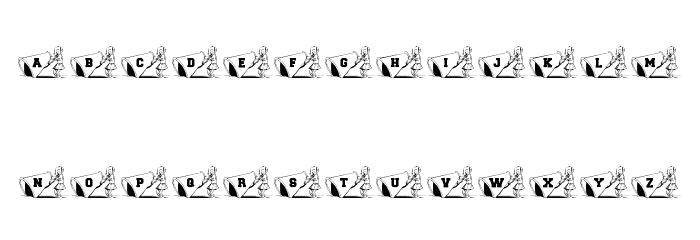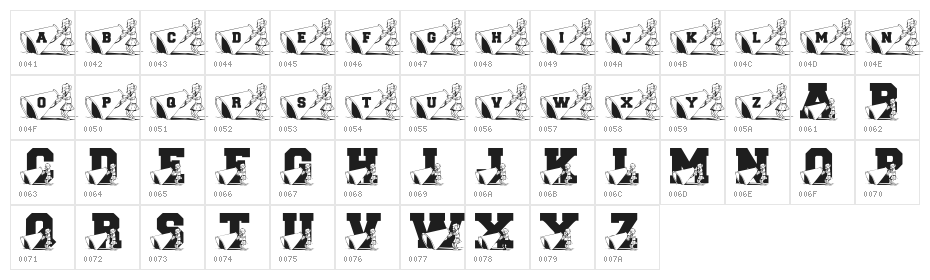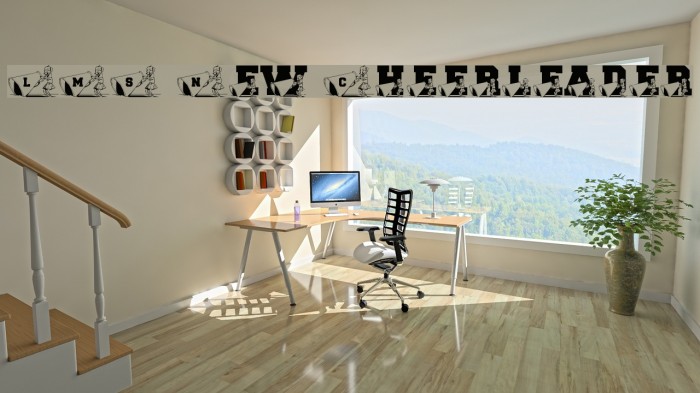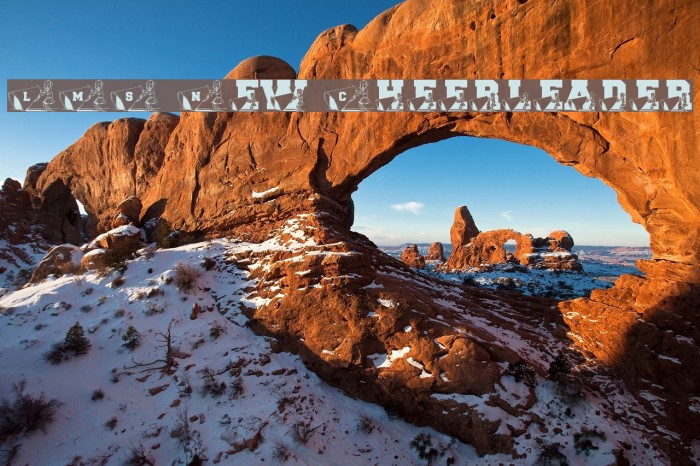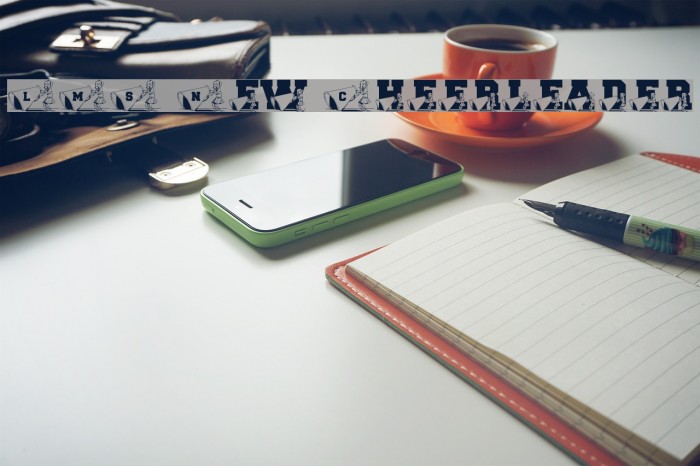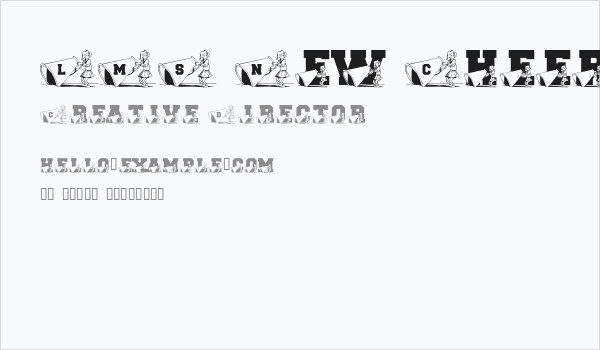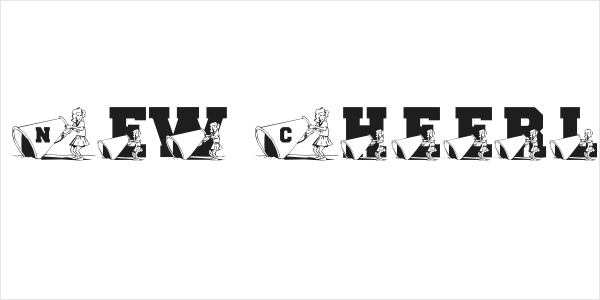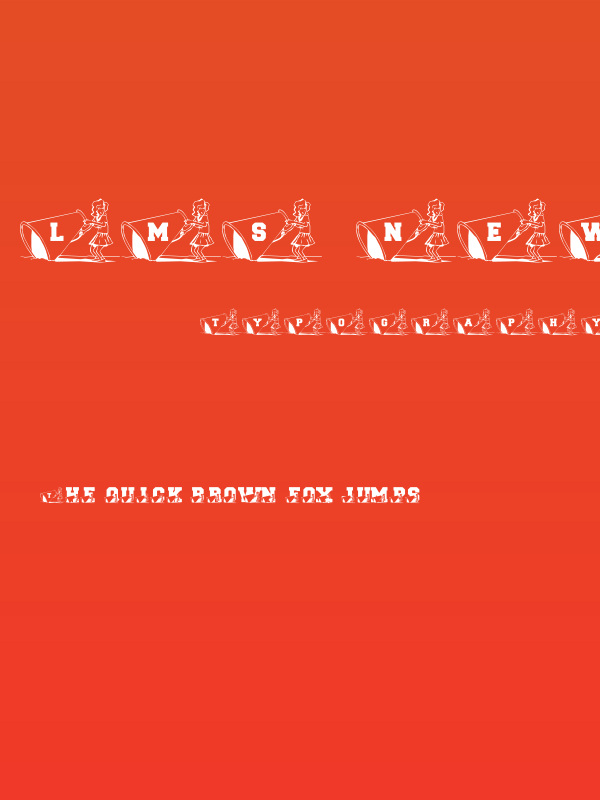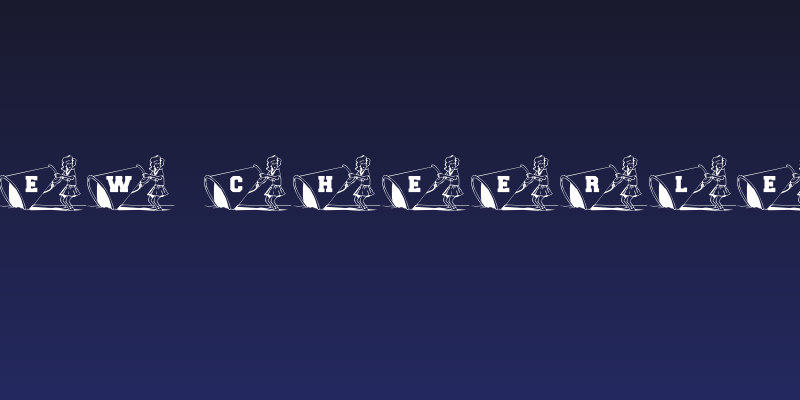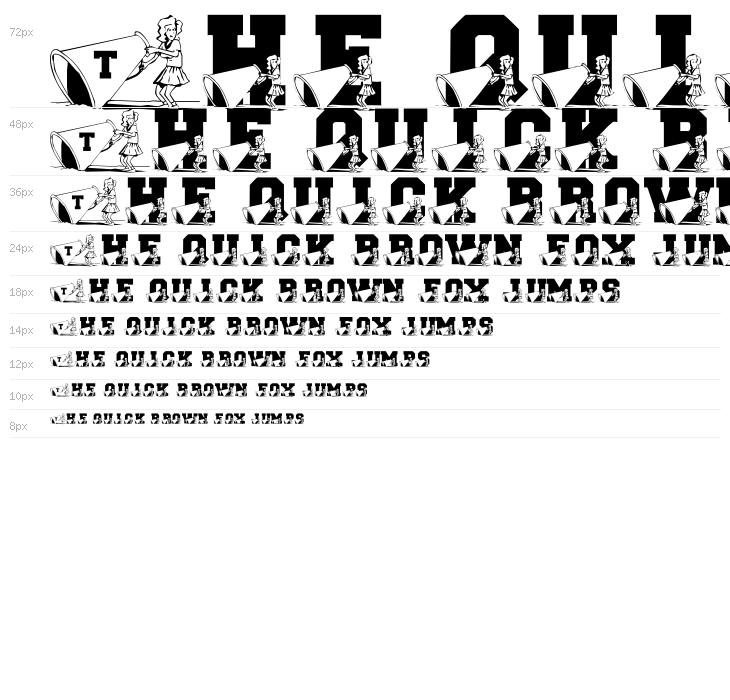
LMS New Cheerleader Font
LMS New Cheerleader Description
This font features a playful and energetic design, incorporating cheerleader graphics alongside bold, uppercase letters. Each character is uniquely styled with a cheerleader figure holding a megaphone, adding a dynamic and spirited touch. The letters are bold and blocky, ensuring high visibility and impact. The font is perfect for projects that require a fun and lively aesthetic, such as sports team branding, event posters, or school spirit materials. The combination of the cheerleader imagery with the bold typography creates a distinctive and memorable look.
| Proposed Projects | Ideal for sports team branding, event posters, and school spirit materials. |